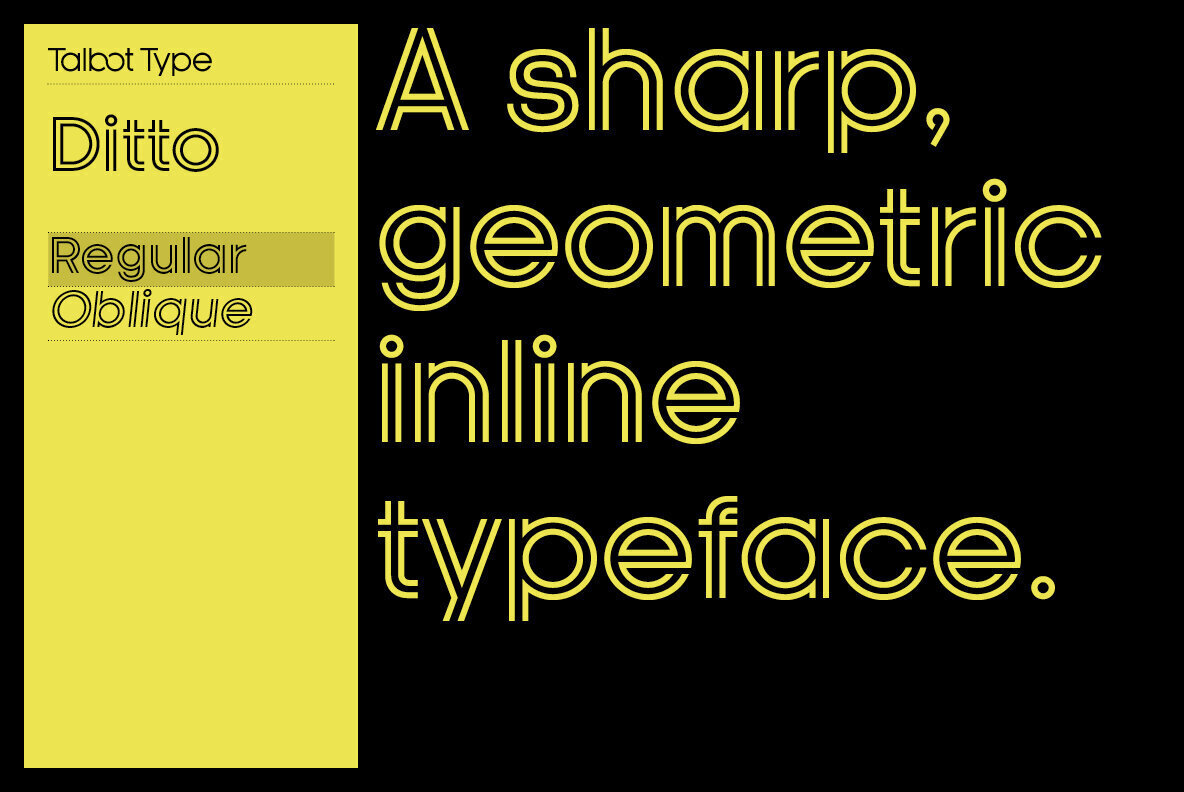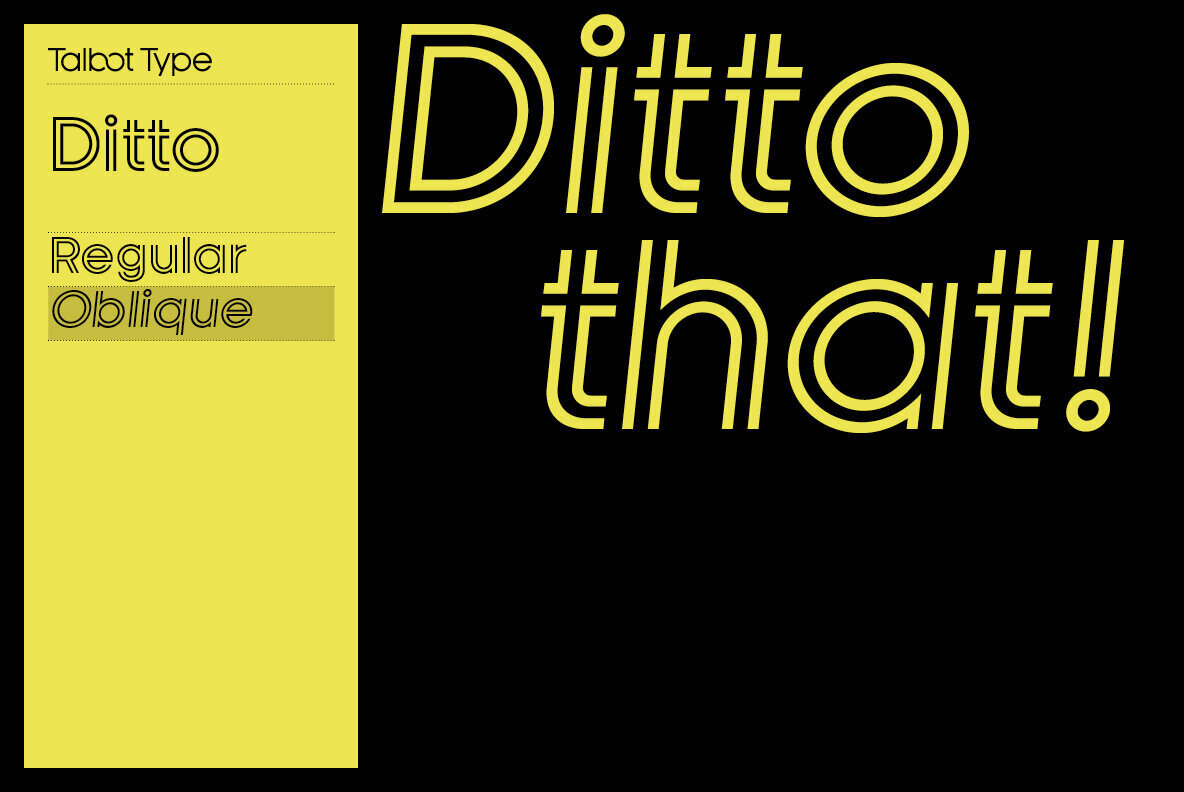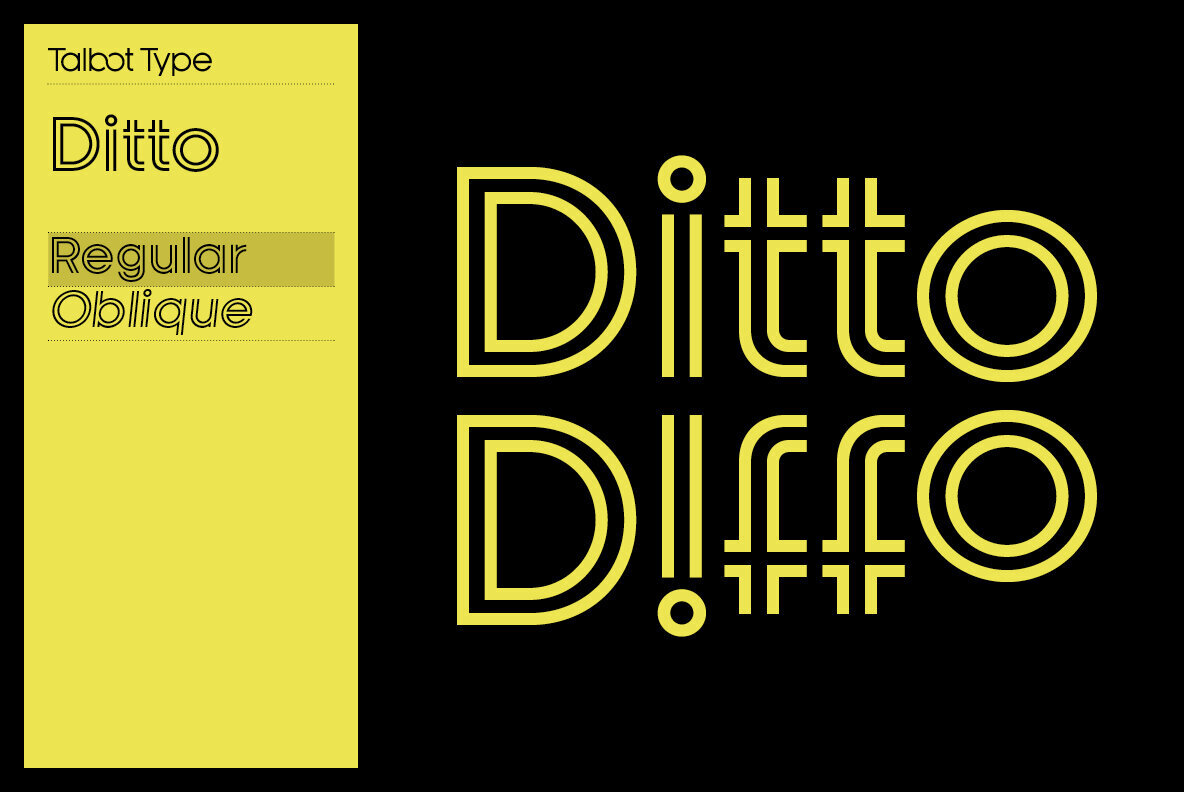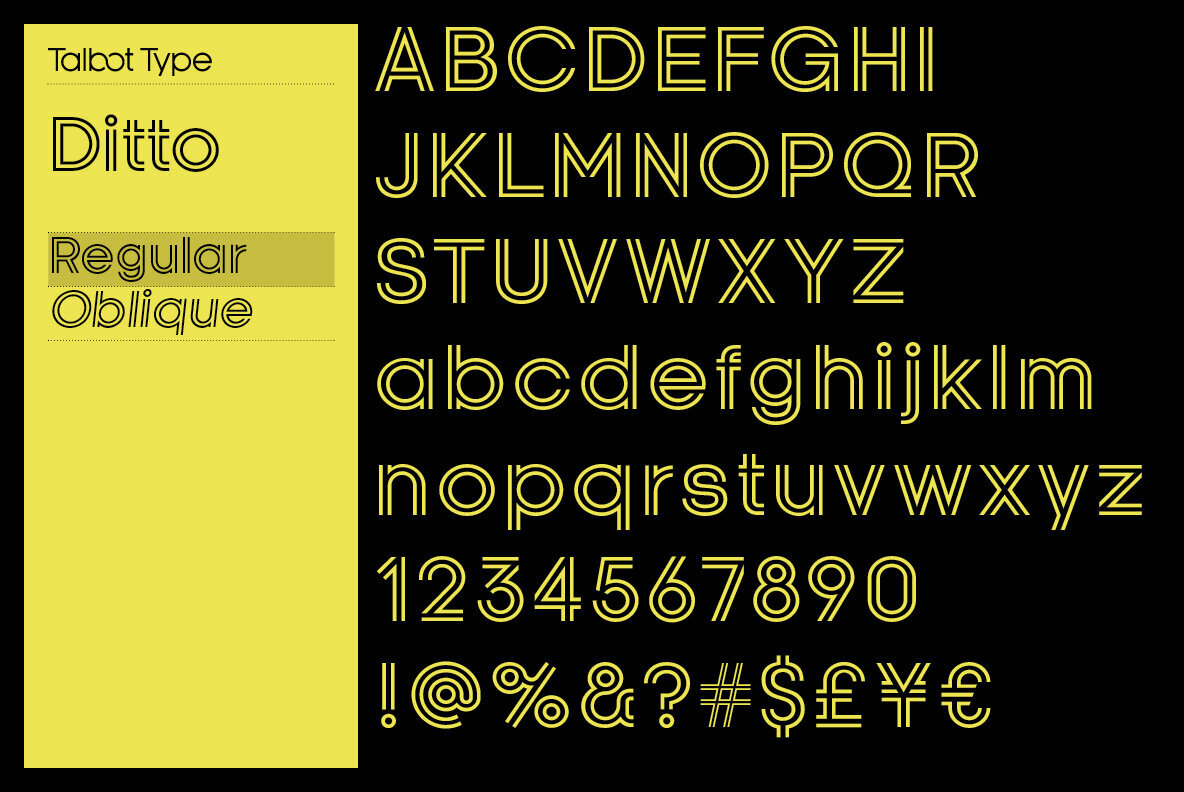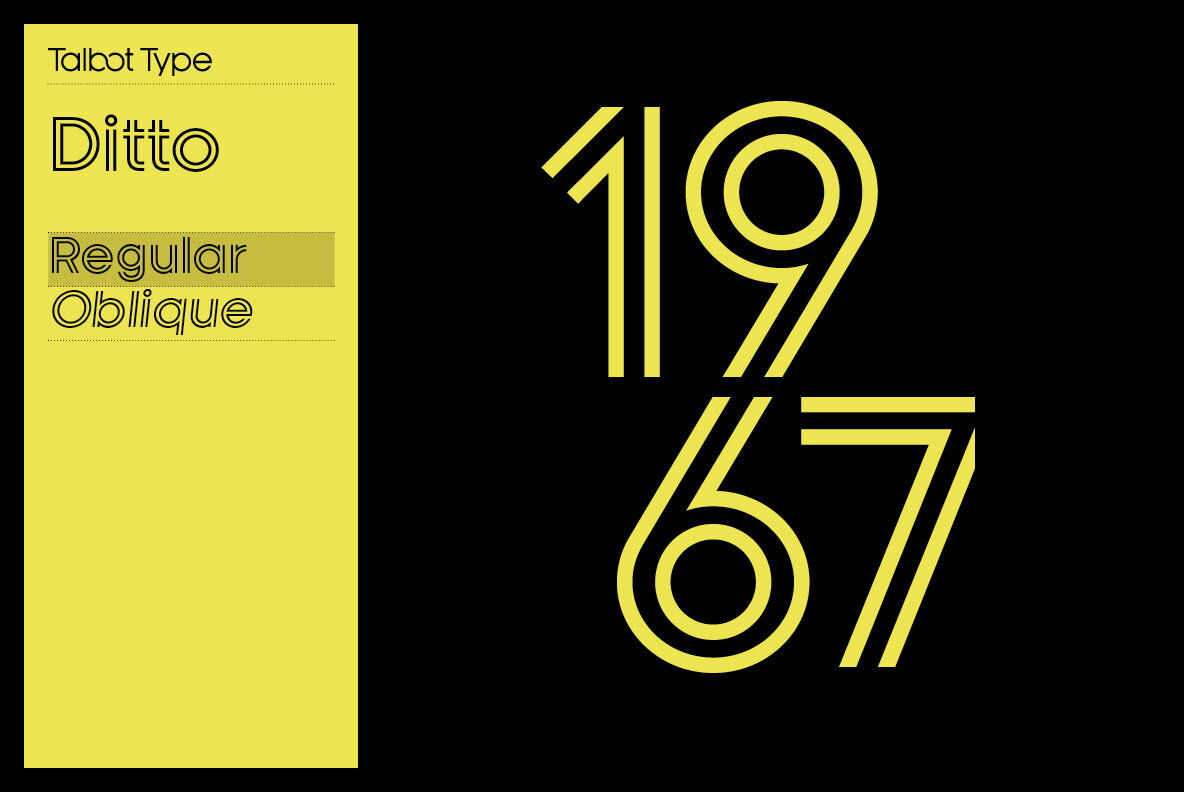
Ditto Font
Ditto by Talbot Type stands out as a geometric, inline display face designed to make an impact. With its roots in the Talbot Type Kamerik family, both Kamerik and Kamerik Text are perfectly suited to complement Ditto as text fonts in any design project. Designed to cater to a global audience, Ditto supports all accented characters for Western and Central European languages, ensuring versatility and adaptability.Ditto: A Confident Inline Display Typeface